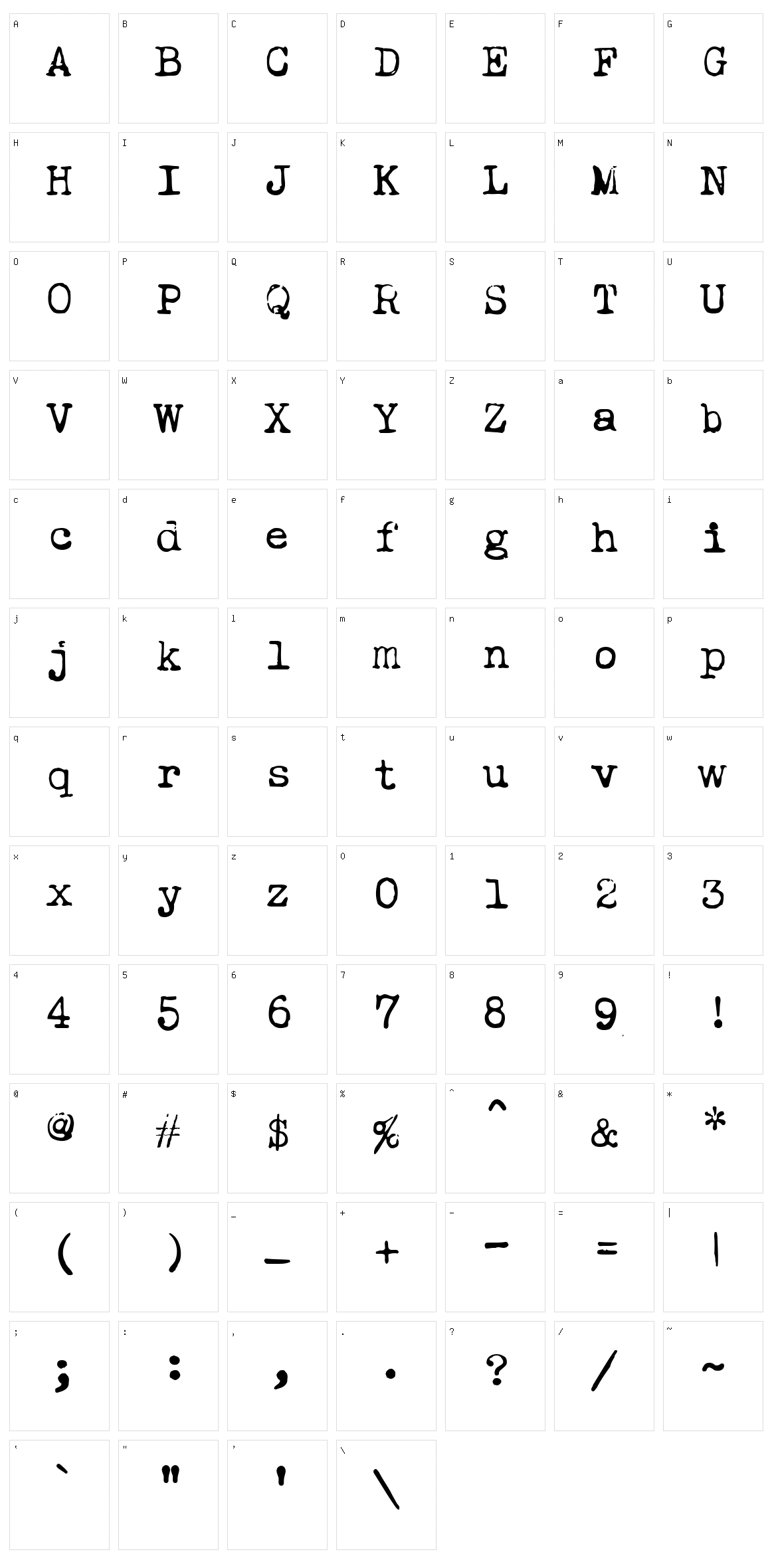
The free font Leicester is carefully designed by Ablaze, showcasing a thoughtful balance of creativity and usability and falls under the Typewriter font style. When you download the ZIP file, it contains only 100.9 KB of font files, making it lightweight and quick to download. Please review the license details below to understand permitted usage and distribution rights. If license information is not available, we recommend using this font for personal projects only or contacting the author directly for commercial usage permissions.